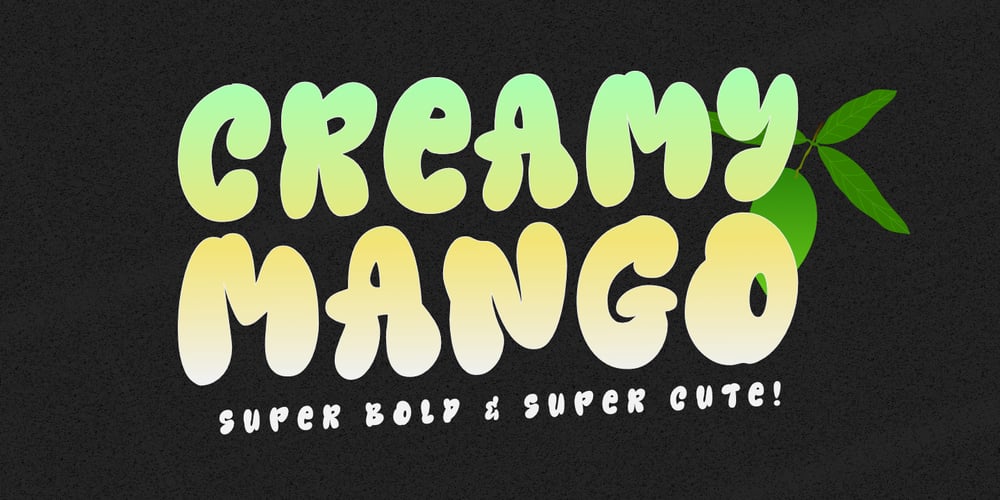
Creamy Mango Font Family was designed by Nurul Hidayani and published by Olivetype. Creamy Mango contains 1 styles and family package options. Creamy Mango is a bold and super cute display font. This font is suitable for headlines and branding! It’s unique and attention-grabbing, while still maintaining a cute aesthetic.It’s super fun!So what’s included : Basic Latin Uppercase and Lowercase Numbers, symbols, and punctuations Multilingual Support. Fully accessible without additional design software Simple Installations Works on PC & Mac Thank You.